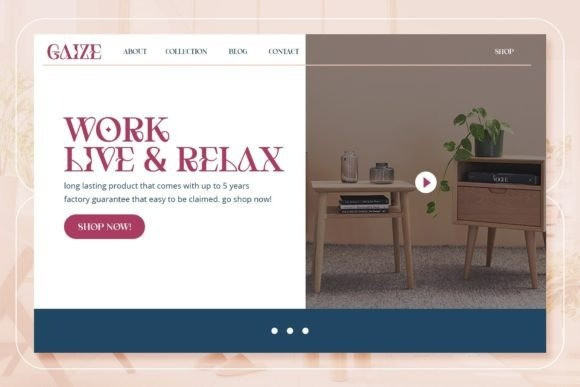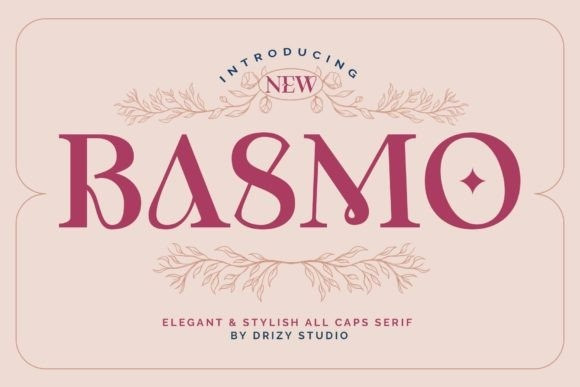
Basmo Font
Hello Everyone, introduce our new product, Basmo Serif Font, is a stylish and elegant serif font. Its exquisite and fashionable character will instantly enhance your projects.